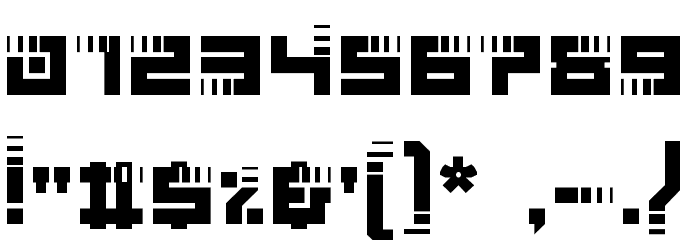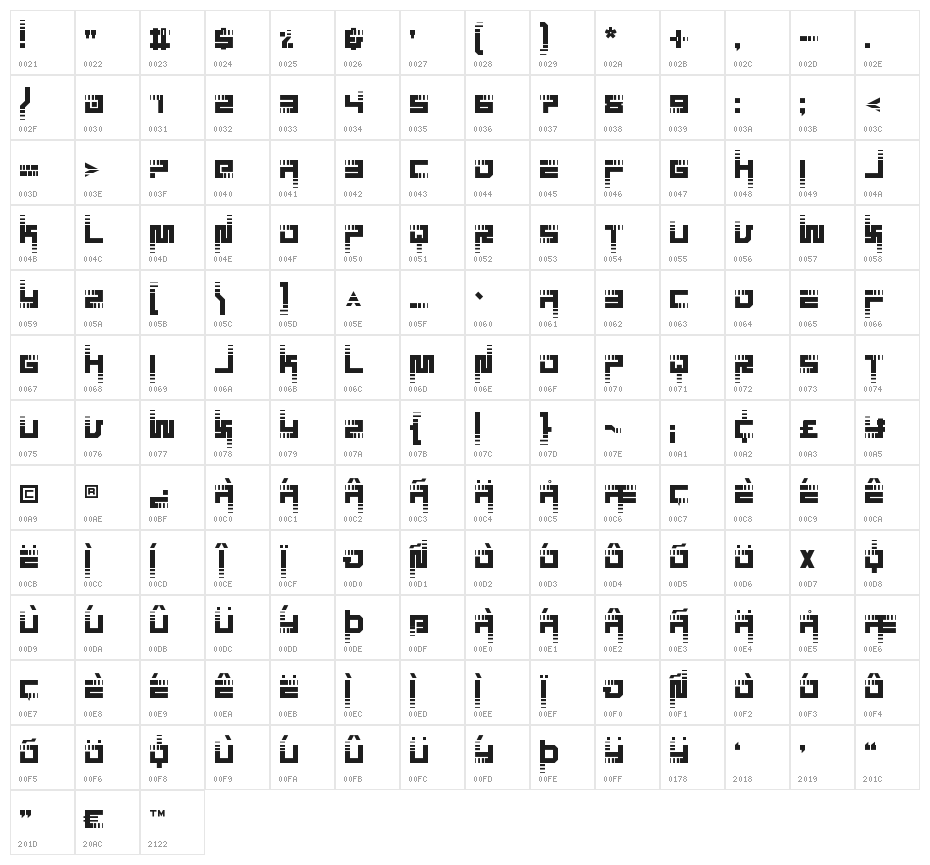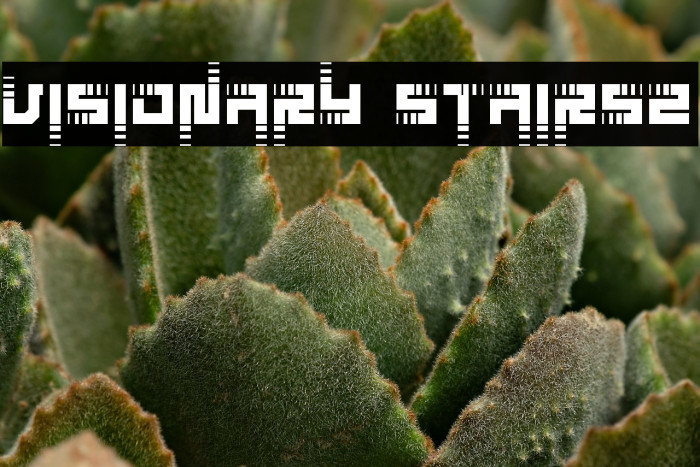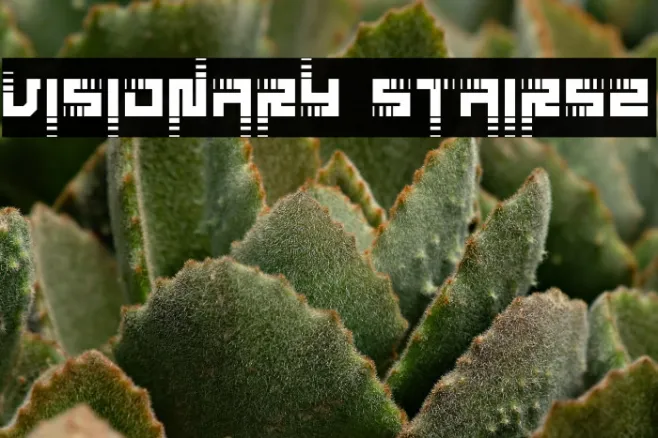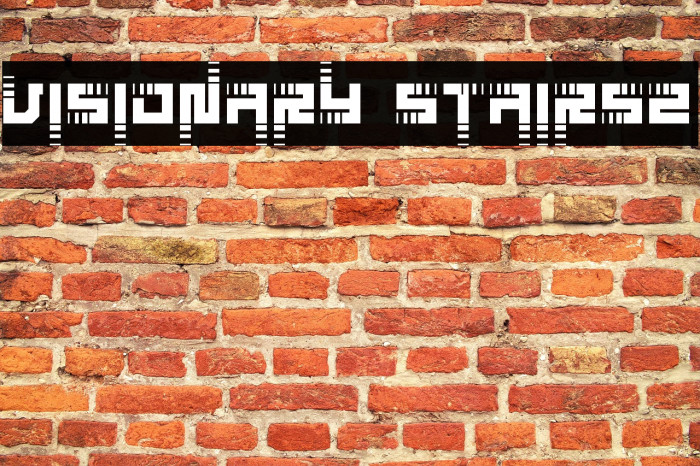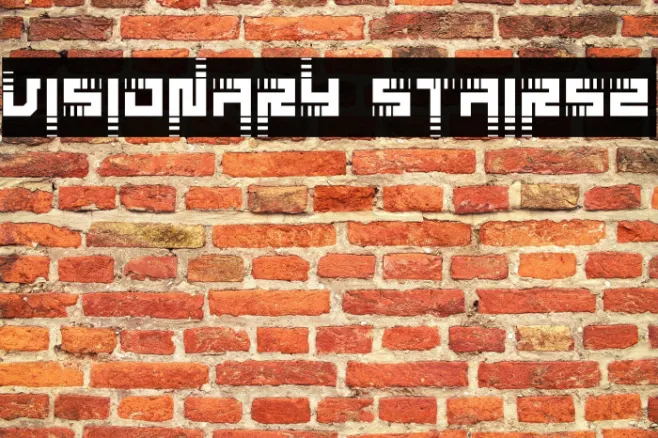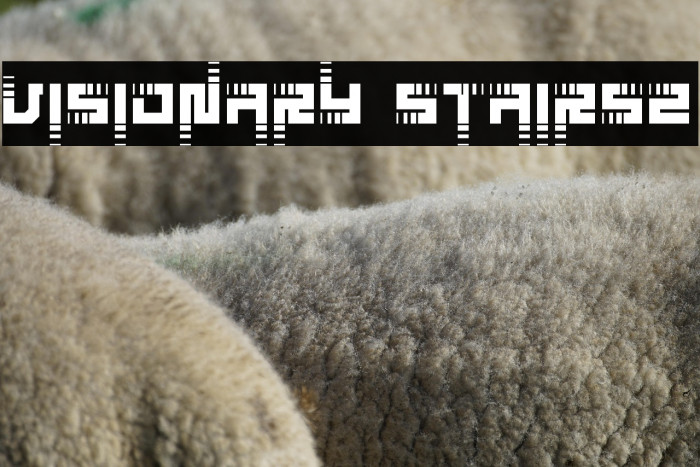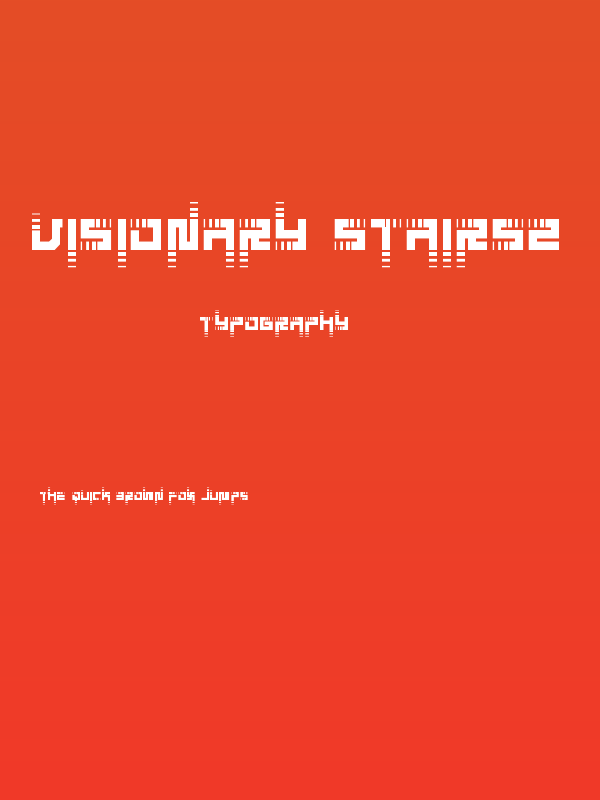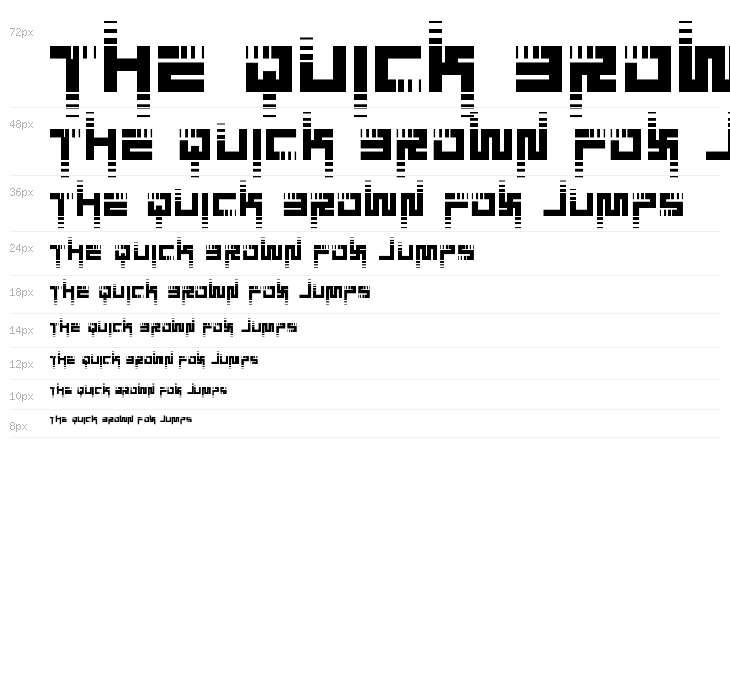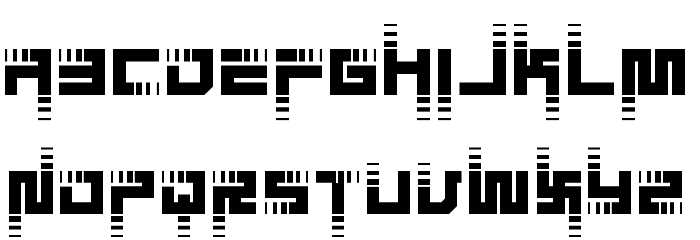
Visionary Stairs2 Font
Visionary Stairs2 Description
This font features a futuristic and digital aesthetic, characterized by its blocky and geometric letterforms. Each character is composed of bold, solid shapes with distinct horizontal and vertical lines that create a sense of movement and rhythm. The design incorporates a unique pattern of repeated horizontal bars, giving it a tech-inspired, modern look. The uppercase and lowercase letters maintain a consistent style, while the numerals and special characters follow the same design principles, ensuring uniformity across the typeface.
Proposed ProjectsIdeal for technology branding, digital media, video game interfaces, and sci-fi themed projects.